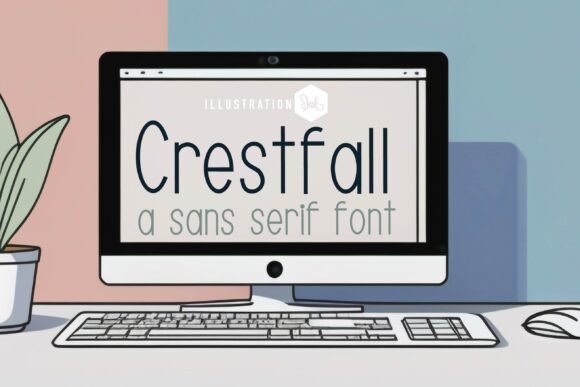
Crestfall Font: A Hand-Crafted Sans Serif for Elegant Designs
The Crestfall Font is a beautiful, hand-crafted sans serif font that has gained popularity among designers and typographers. Its unique characteristics, including wide spacing throughout, make it an ideal choice for a variety of design projects. In this article, we’ll explore the features of the Crestfall Font, its uses, and the benefits of using hand-crafted fonts in your designs.
What is a Hand-Crafted Font?
A hand-crafted font, also known as a handwritten font, is a typeface that is designed to mimic the look of handwriting. It is often used to add a personal touch to designs, making them more approachable and elegant. Hand-crafted fonts can be either formal or informal, and they can be used for a wide range of purposes, from invitations and greeting cards to logos and branding.
Features of Crestfall Font
The Crestfall Font is a sans serif font, which means it doesn’t have the small lines or flourishes at the ends of the letters. This gives it a clean and modern look, making it perfect for designs that require a sleek and elegant feel. Some of the key features of the Crestfall Font include:
- Hand-crafted design: The Crestfall Font is designed to look like it was written by hand, giving it a unique and personal touch.
- Wide spacing: The font has wide spacing throughout, which makes it easy to read and gives it a airy feel.
- Light version: The Crestfall Font comes with a light version, which is perfect for designs that require a subtle and understated look.
Uses of Crestfall Font
The Crestfall Font is a versatile font that can be used for a wide range of design projects. Some of the most popular uses of the font include:
- Invitations: The Crestfall Font is perfect for invitations, such as wedding invitations, birthday invitations, and graduation invitations.
- Greeting cards: The font is also great for greeting cards, including Christmas cards, birthday cards, and get-well cards.
- Logos and branding: The Crestfall Font can be used to create elegant and sophisticated logos and branding materials.
- Signage: The font is also suitable for signage, including billboards, posters, and flyers.
Benefits of Using Hand-Crafted Fonts
Hand-crafted fonts, such as the Crestfall Font, offer a number of benefits for designers and typographers. Some of the most significant benefits include:
- Unique look: Hand-crafted fonts have a unique and personal look that sets them apart from other fonts.
- Elegant feel: Hand-crafted fonts can add an elegant and sophisticated feel to designs.
- Flexibility: Hand-crafted fonts can be used for a wide range of design projects, from formal to informal.
- Emotional connection: Hand-crafted fonts can create an emotional connection with the reader, making designs more relatable and engaging.
Tips for Using Crestfall Font
Here are some tips for using the Crestfall Font in your designs:
- Use it for headlines: The Crestfall Font is perfect for headlines and titles, where its elegant and sophisticated look can shine.
- Pair it with other fonts: The Crestfall Font can be paired with other fonts to create a unique and interesting look.
- Use it for body text: The Crestfall Font can also be used for body text, especially for short paragraphs and articles.
- Experiment with colors: The Crestfall Font looks great in a variety of colors, so don’t be afraid to experiment and find the perfect color for your design.
The Crestfall Font is a beautiful and elegant hand-crafted sans serif font that is perfect for a wide range of design projects. Its unique characteristics, including wide spacing throughout, make it an ideal choice for designers and typographers. With its flexibility, elegance, and emotional connection, the Crestfall Font is a great addition to any designer’s font library.
- What is the Crestfall Font? The Crestfall Font is a hand-crafted sans serif font that is designed to mimic the look of handwriting.
- What are the features of the Crestfall Font? The Crestfall Font has a number of features, including wide spacing throughout, a light version, and a clean and modern look.
- What are the uses of the Crestfall Font? The Crestfall Font can be used for a wide range of design projects, including invitations, greeting cards, logos and branding, and signage.
- What are the benefits of using hand-crafted fonts? Hand-crafted fonts, such as the Crestfall Font, offer a number of benefits, including a unique look, elegant feel, flexibility, and emotional connection.